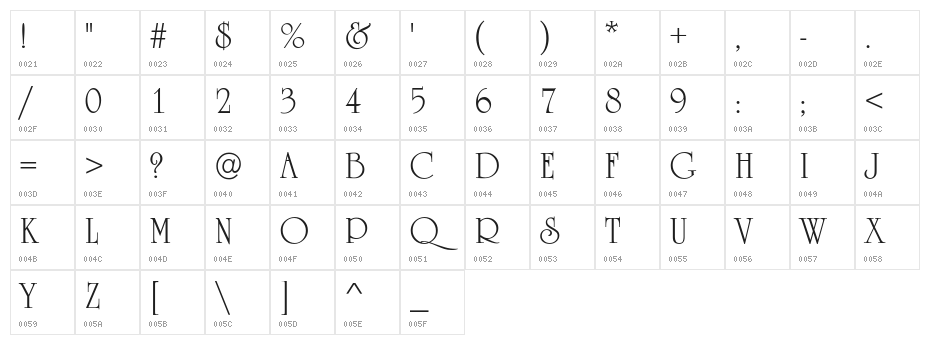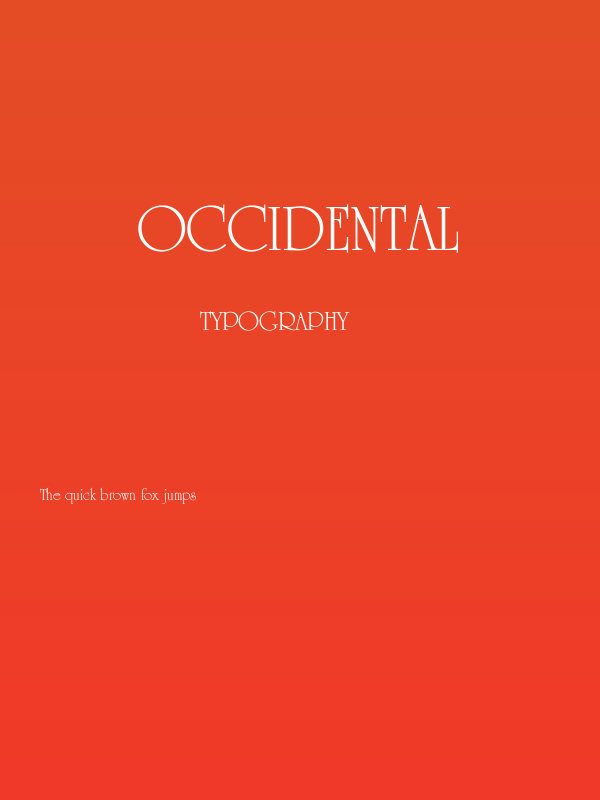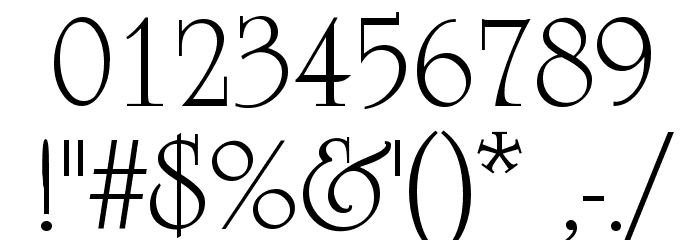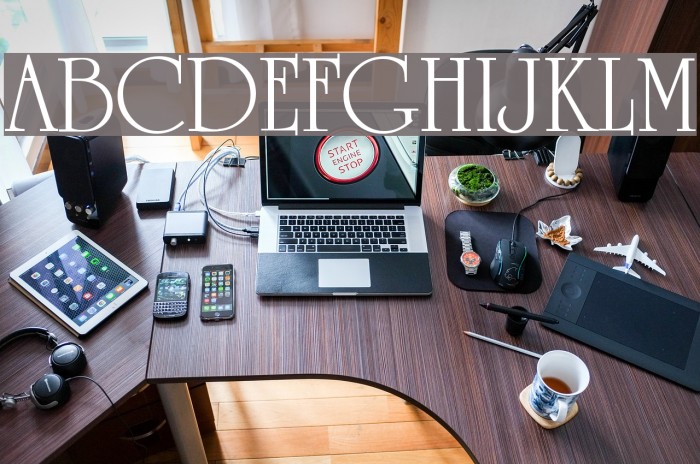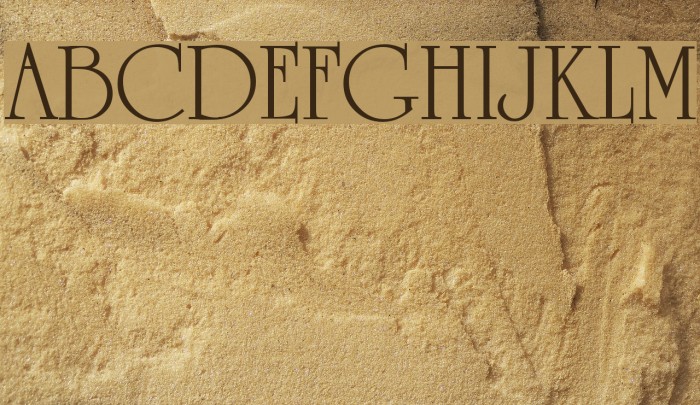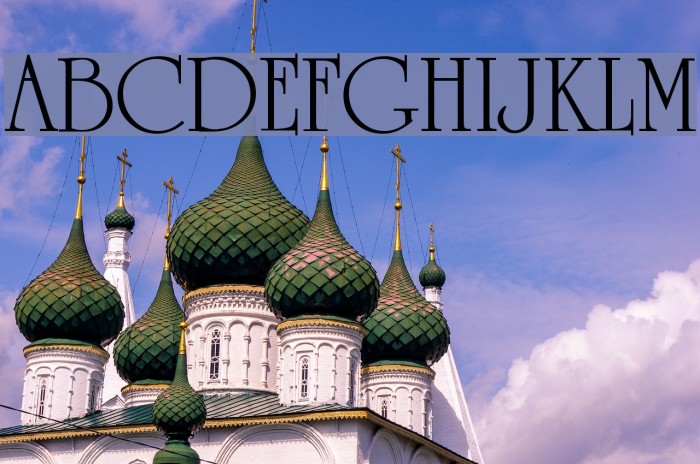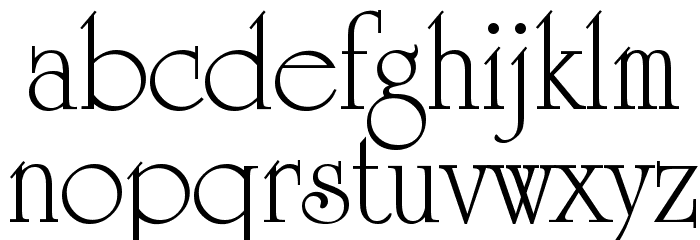
Occidental Font
Occidental Description
This font exhibits a classic serif style with elegant, elongated strokes and subtle curves, giving it a sophisticated and timeless appearance. The uppercase letters are characterized by their tall, narrow forms and sharp serifs, while the lowercase letters maintain a consistent flow with slightly rounded edges. The numerals are distinct and clear, ensuring readability. Special characters are well-integrated, maintaining the overall aesthetic. The font's design is both formal and versatile, making it suitable for a variety of applications.
| Overall Style | Classic |
| Use Case | Headlines, Body text, Logos |
| Proposed Projects | Ideal for formal invitations, editorial design, branding, and luxury product packaging. |